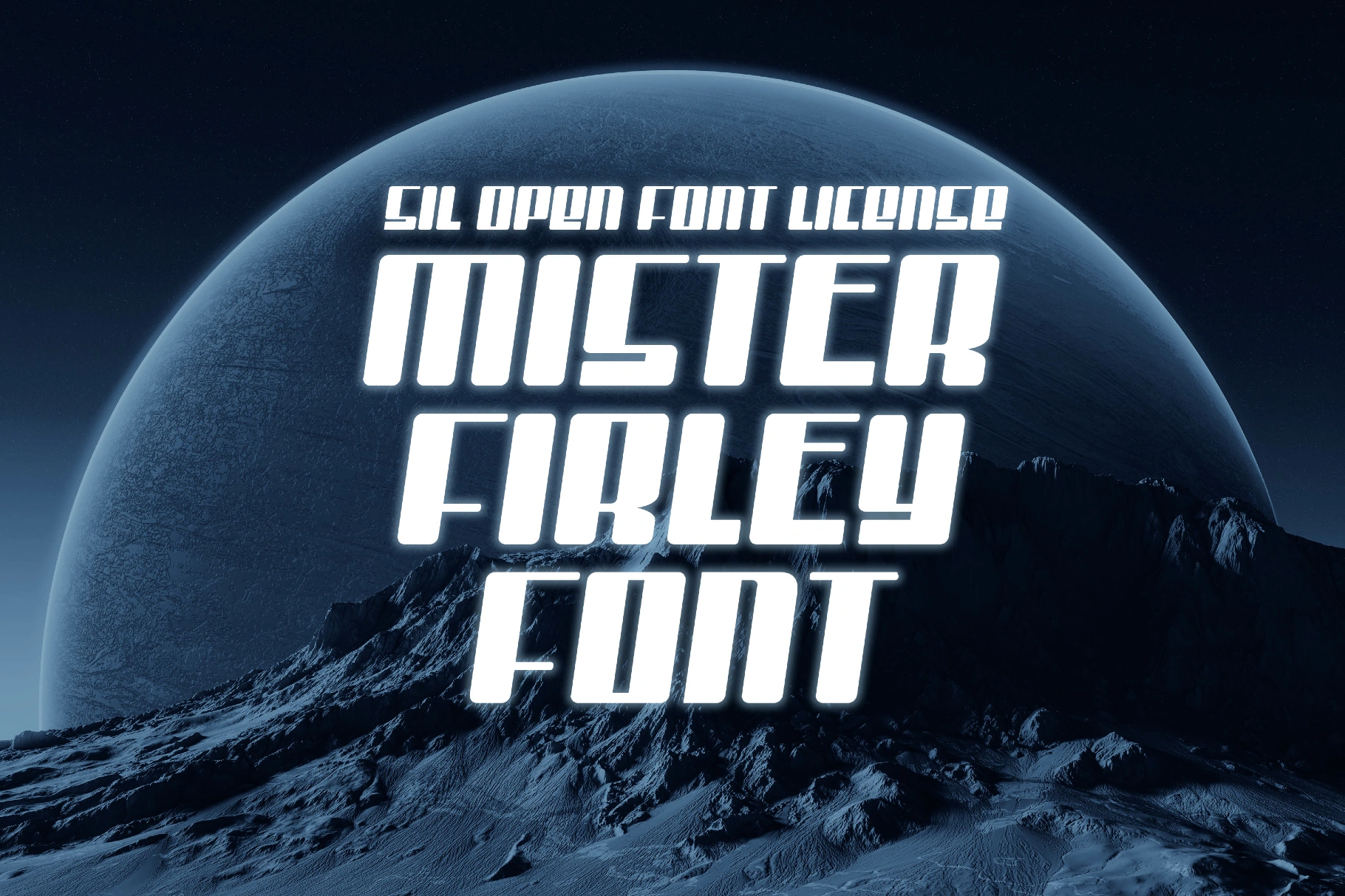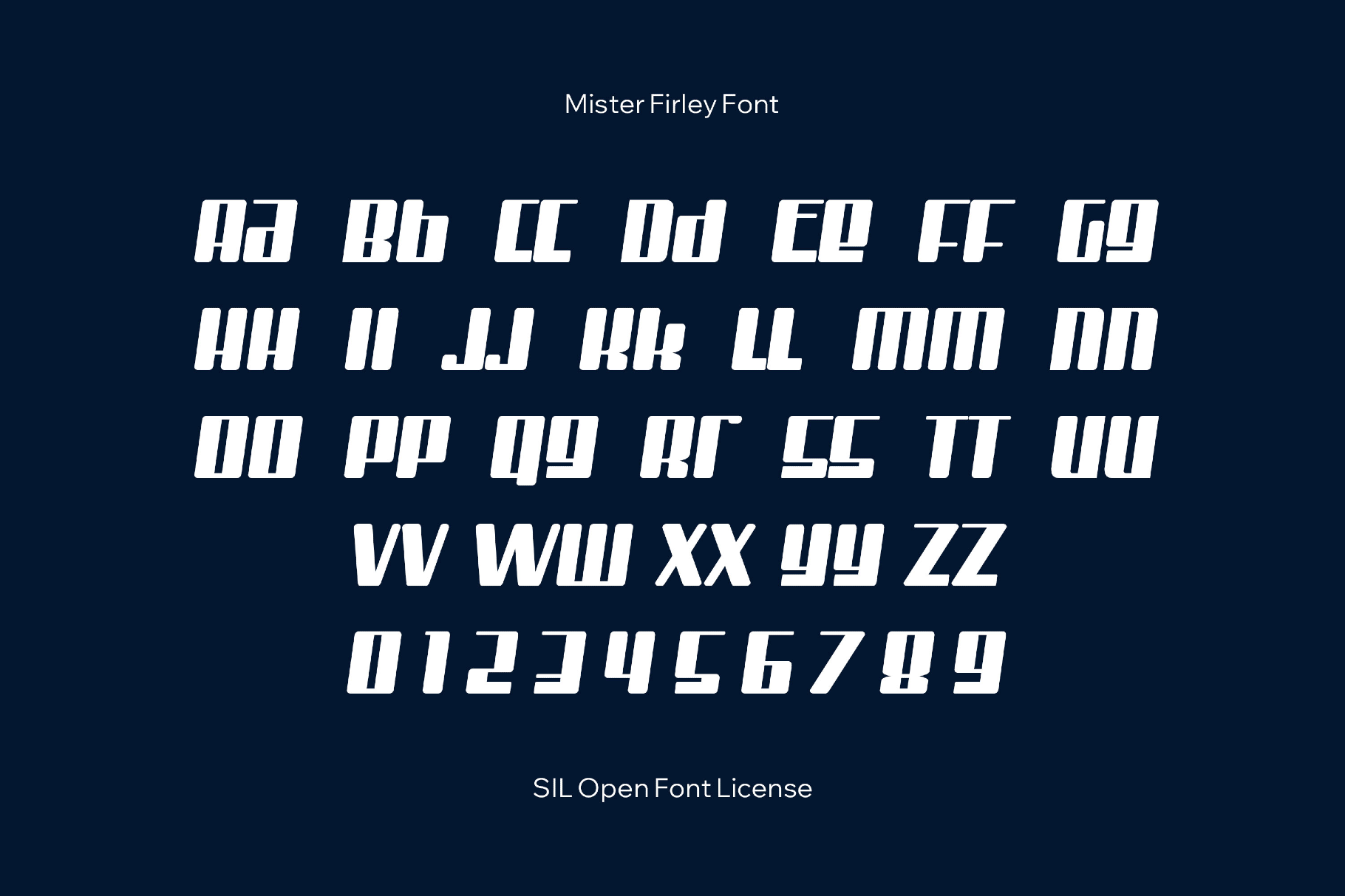
Mister Firley Font
Mister Firley is a loud italic display font in a chunky industrial style, built from children’s TV title cards and mid-century cartoon lettering. Thick, slightly slanted strokes with low crossbars and tight spacing are a natural fit for kids’ branding, playful packaging, electronic music cover art, throwback Y2K and 90s layouts, comic-style headlines, posters, casual logos, educational materials, and social graphics.